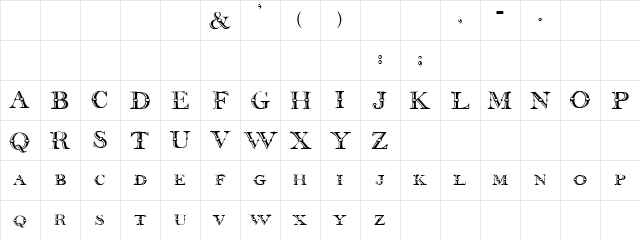
DALMATION Normal Font Preview
DALMATION Normal
DALMATION Normal Font Details
Design Context for DALMATION Typeface
DALMATION is a composed and adaptable typeface that performs quietly and consistently across a wide range of design contexts.